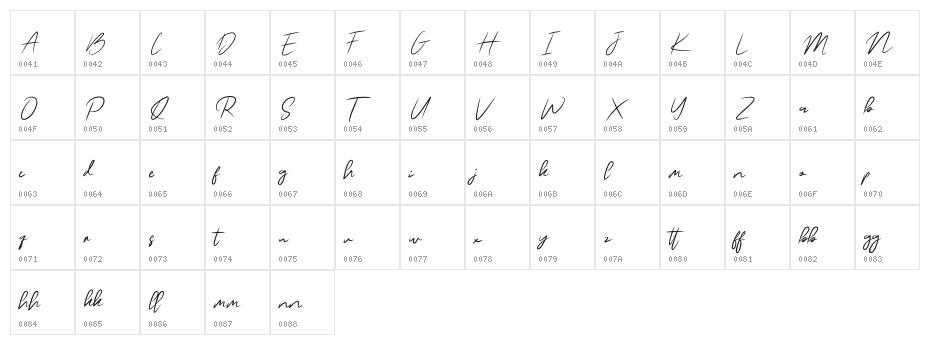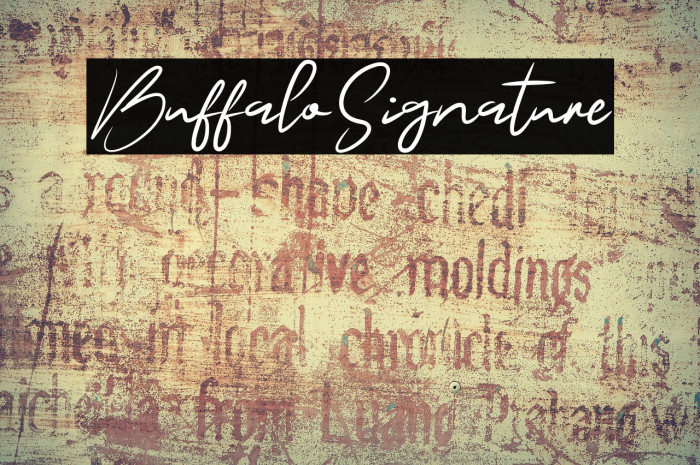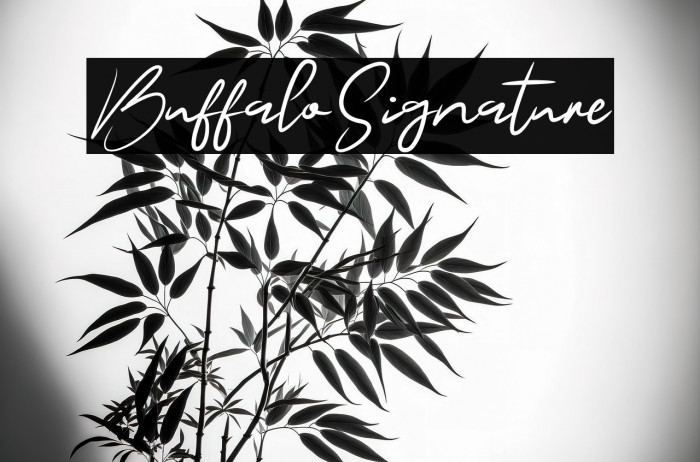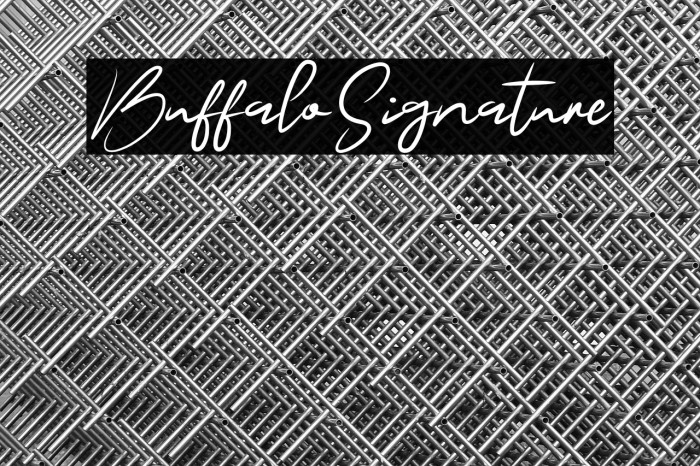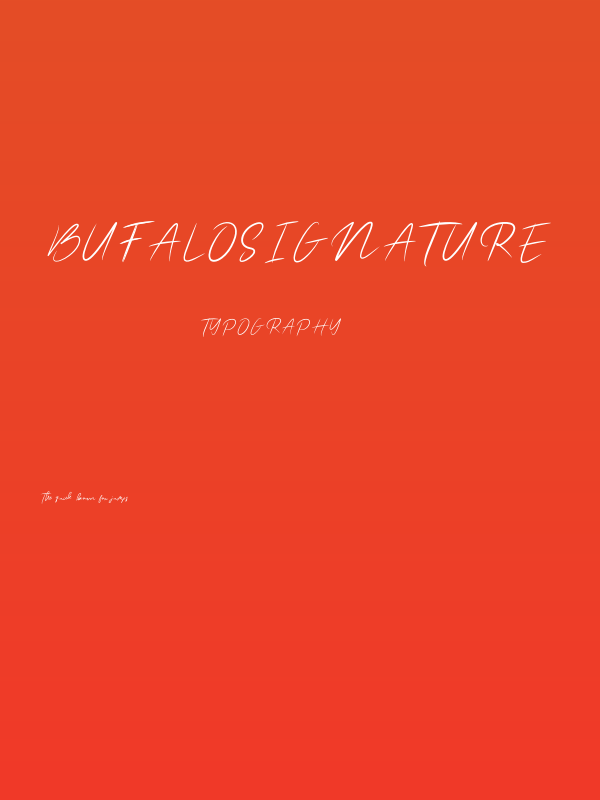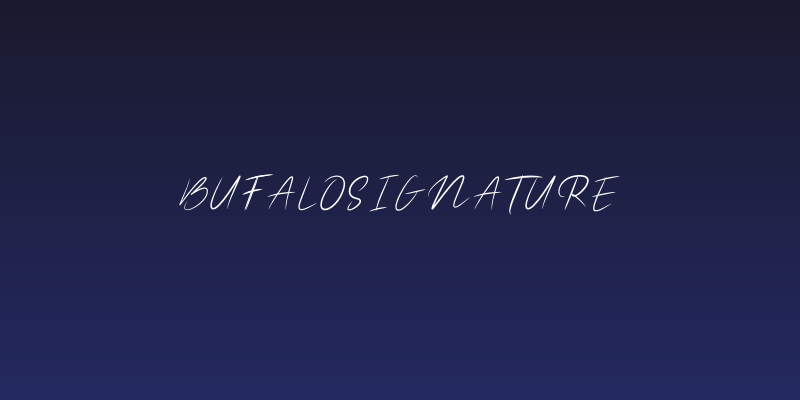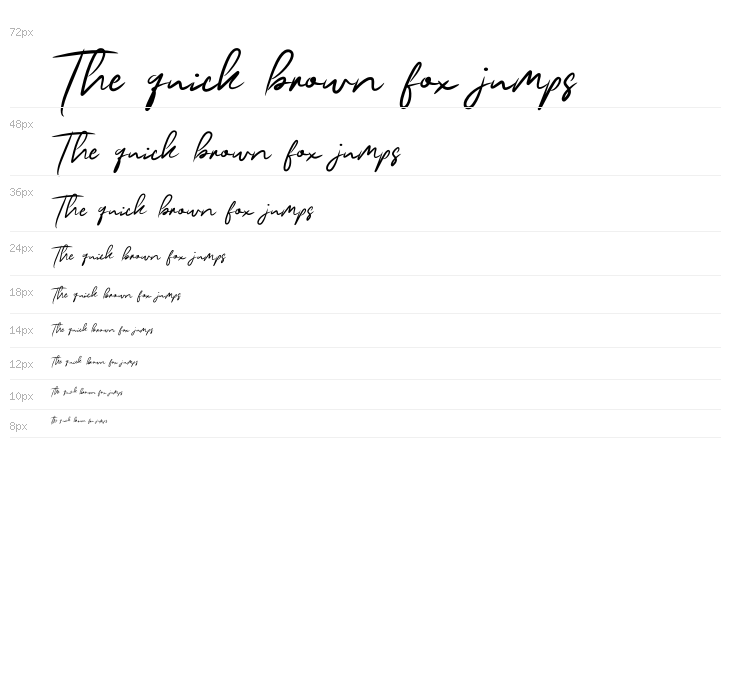
BuffaloSignature Font
BuffaloSignature Description
This elegant script font features a flowing, handwritten style with a modern touch. The uppercase letters are tall and slender, with a slight slant that adds a sense of motion and grace. The lowercase letters are more compact, with smooth, connected strokes that create a seamless flow. The font exudes sophistication and is perfect for projects that require a personal, yet polished touch. Its delicate curves and loops give it a refined appearance, making it suitable for invitations, branding, and other creative designs.
| Proposed Projects | Ideal for wedding invitations, branding, logos, and elegant stationery. |